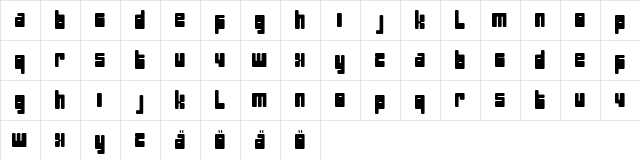
pectopah Regular
Design Context for pectopah Typeface
pectopah is a composed and adaptable typeface that performs quietly and consistently across a wide range of design contexts.